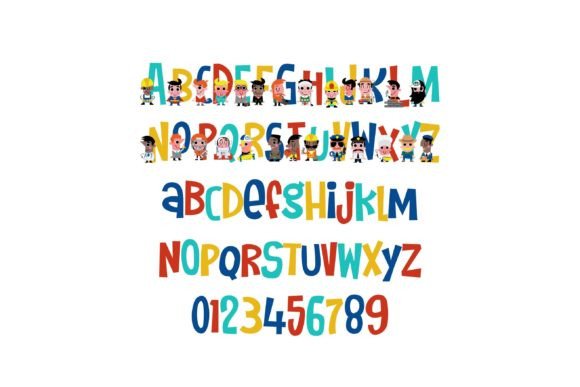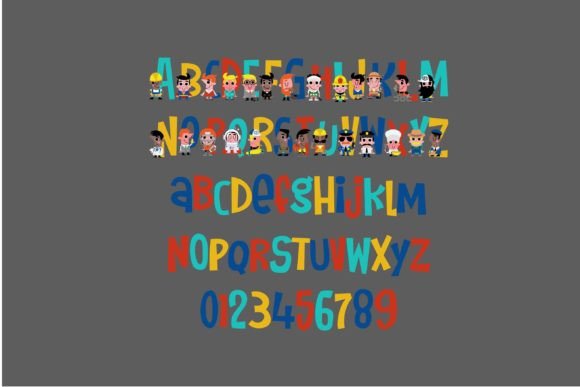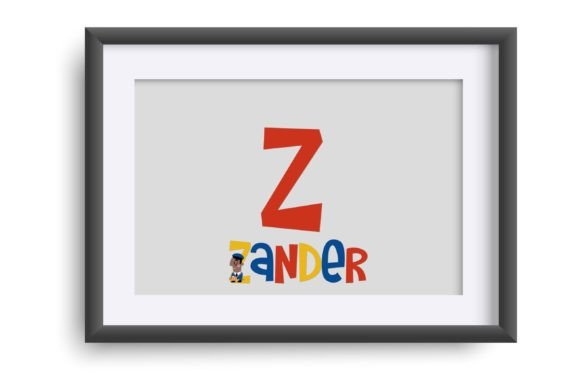
Introduction to Daily Dad Font
This full-color font features blocky, brightly colored sans serif lettering with β€œDads” on the uppercase.
Key Features of Daily Dad Font